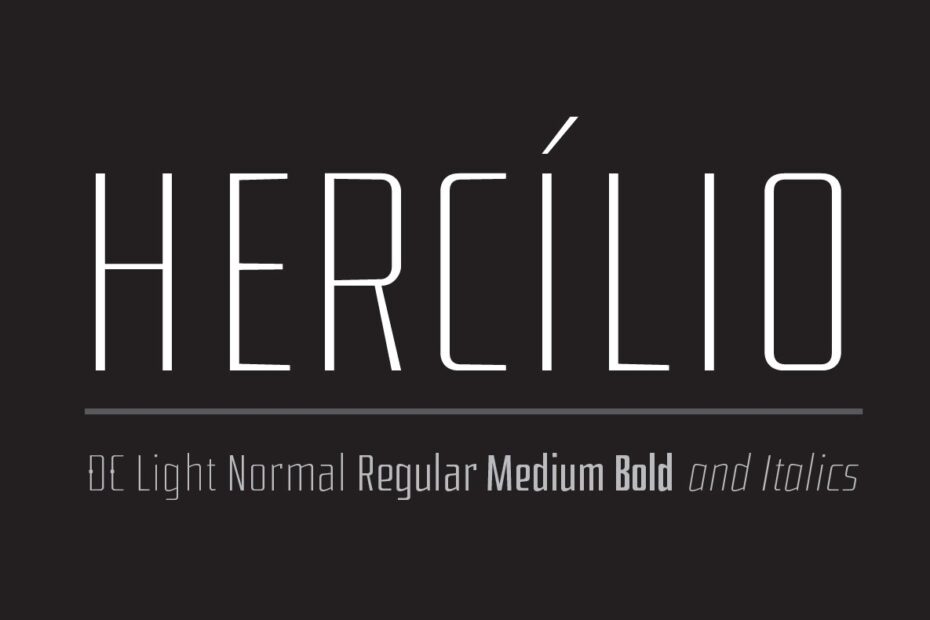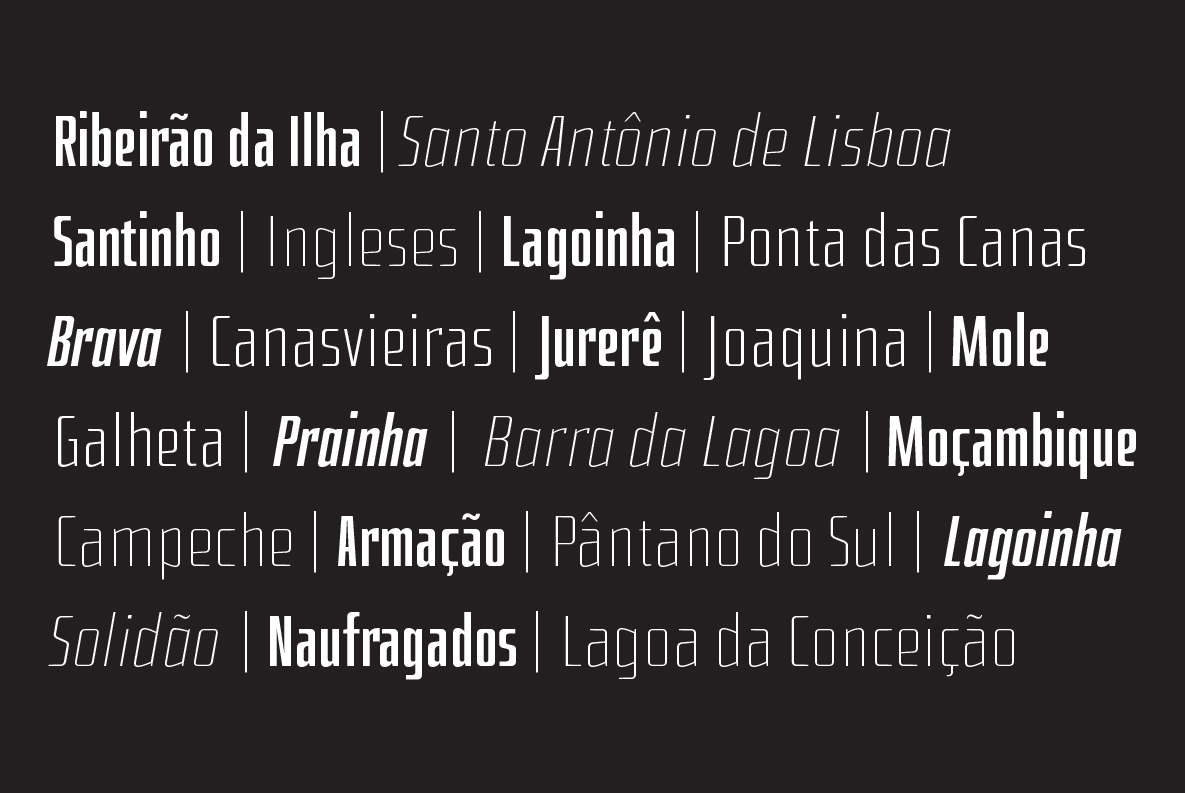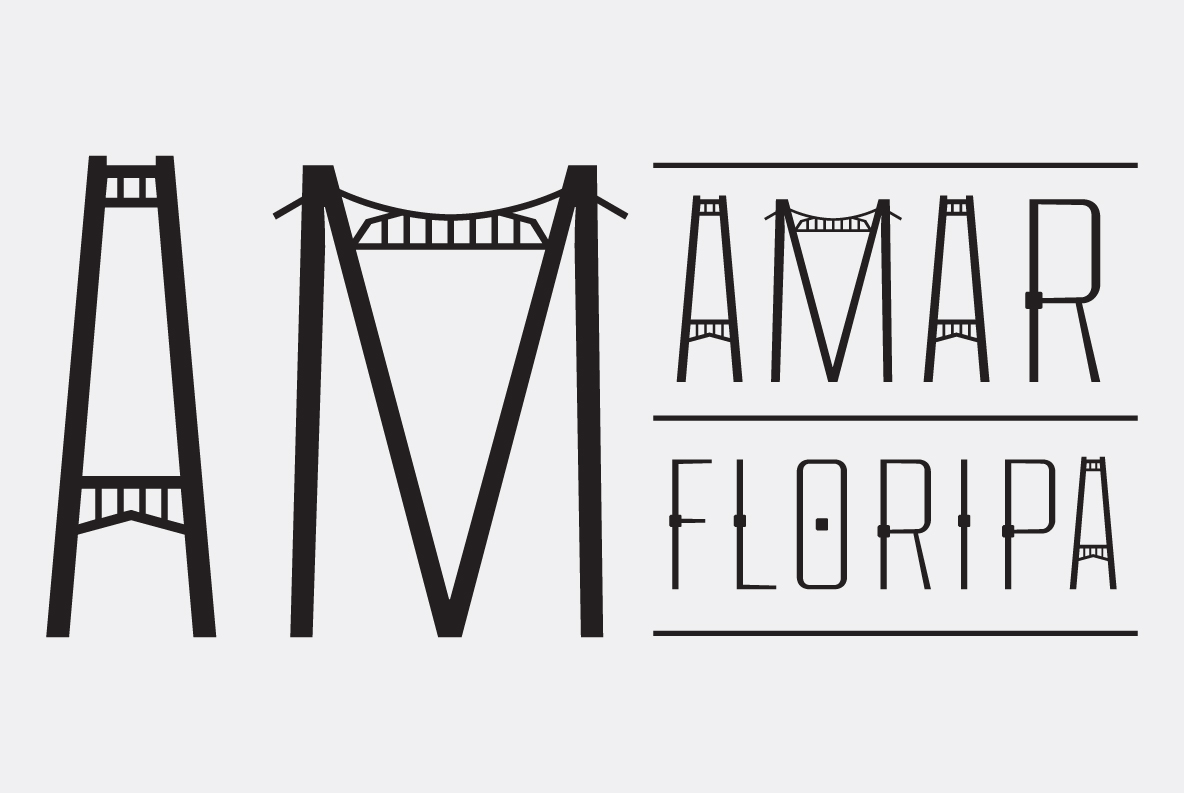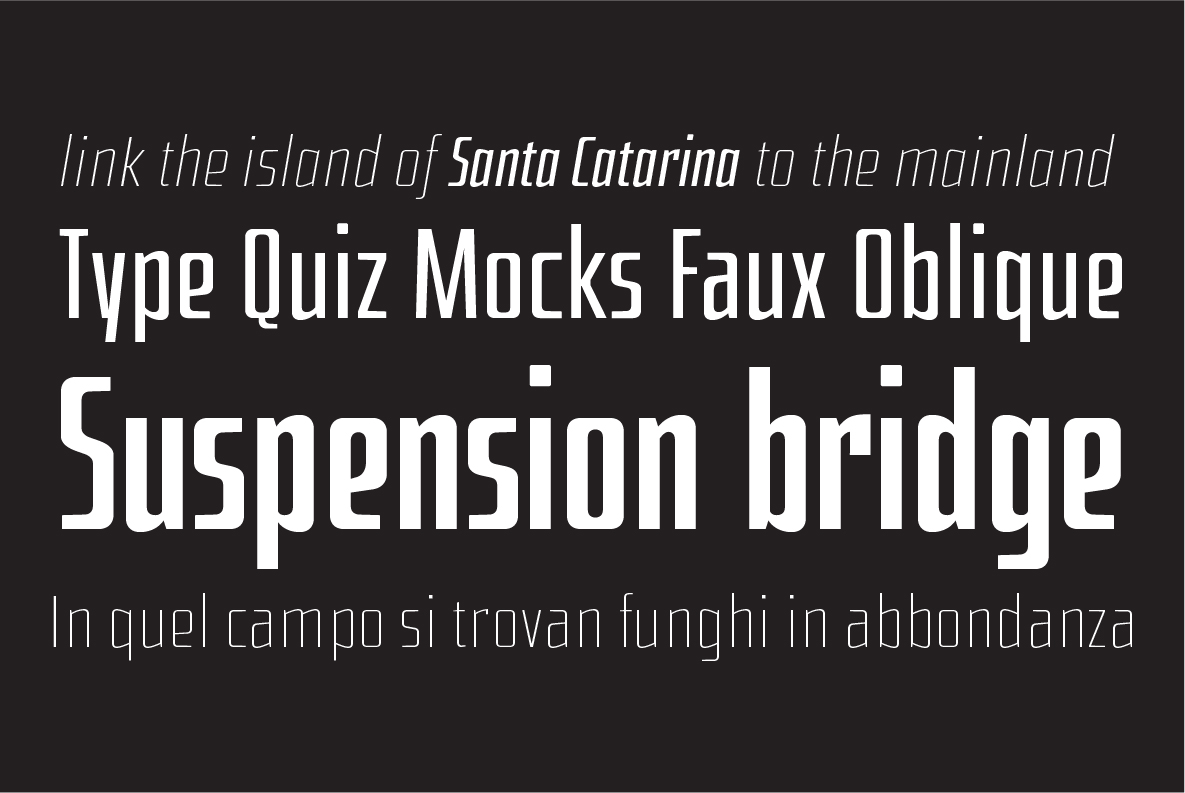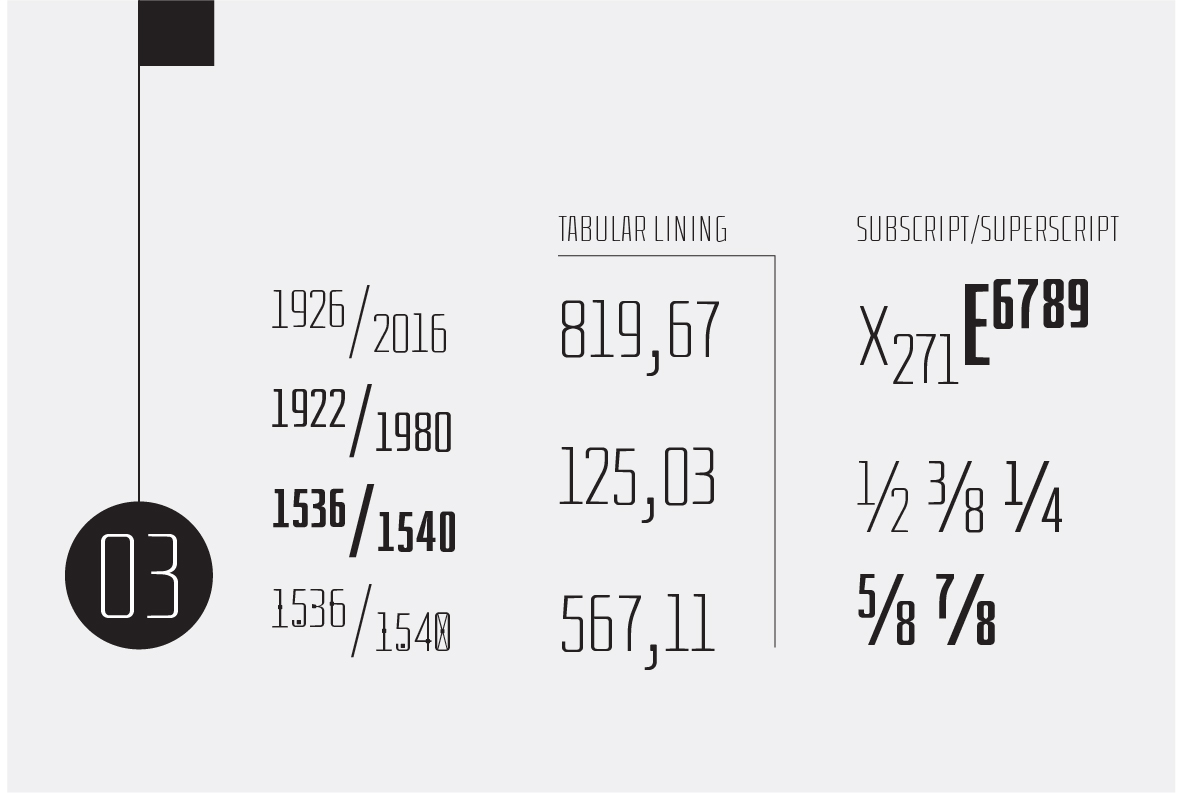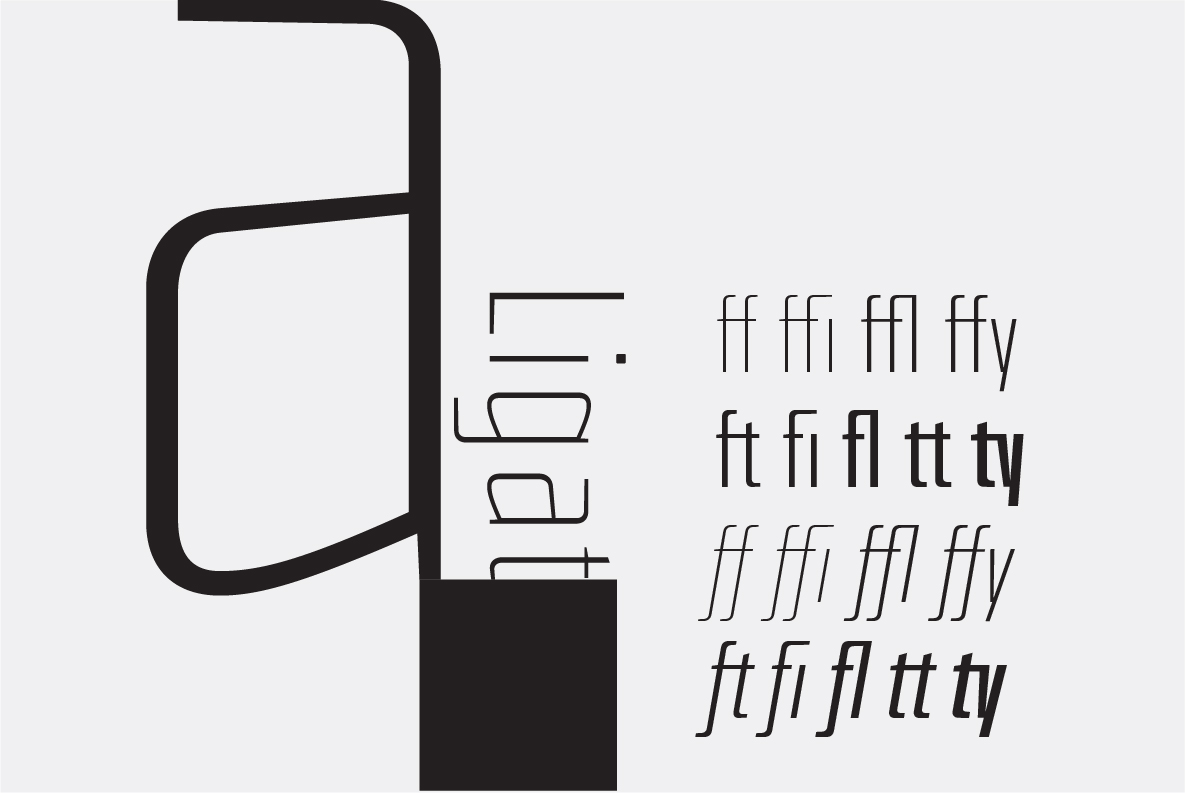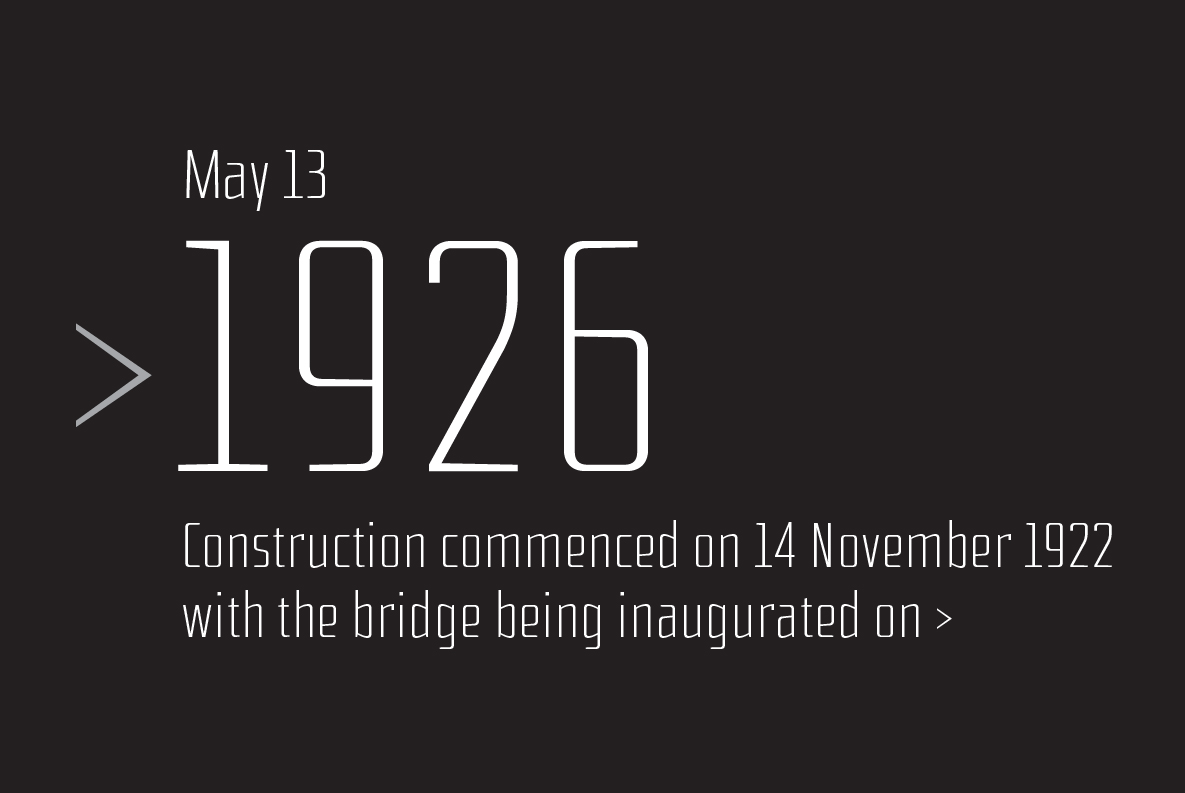
Meet Hercílio Font, a typographic family inspired by the architectural forms of the iconic Hercílio Luz Bridge in Florianopolis, Brazil. This stunning font family is designed to bring modernity and elegance to any design project, making it a valuable asset for designers looking to elevate their work.
With its unique blend of geometric and modern elements, Hercílio Font is sure to captivate your audience and leave a lasting impression. Whether you’re working on a business project, a magazine, or a website, this versatile font is sure to be a game-changer in your design arsenal.
Hercílio Font Key Features
- Font Family: A sans-serif font designed for digital use
- Unique Characteristics: Features a clean and modern design with a subtle rounded edge, making it suitable for digital interfaces, signage, and branding materials
- Language Support: Supports a wide range of languages, including Latin, Cyrillic, Greek, and many more
Hercílio Font Review
Hercílio Font is a unique and eye-catching font that can add a touch of elegance to any design. ✨ I appreciate its clean lines, geometric shapes, and minimalist aesthetic, making it perfect for modern designs.
- ✨ Versatility: Hercílio Font can be used in a variety of designs, from headlines to body text, making it a great addition to any font library.
- ✨ Legibility: The font is highly legible, even at smaller font sizes, making it suitable for a wide range of applications.
- ✨ Customizability: Hercílio Font offers a range of weights and styles, allowing designers to experiment with different looks and feels.
However, there are some limitations to consider. ⚠️ The font may not be the best choice for designs that require a more traditional or serif font style. Additionally, some users may find the font’s geometric shapes to be a bit too angular or futuristic.
Overall, I’m impressed with Hercílio Font’s unique design and versatility. While it may not be the best fit for every design project, it’s certainly a great option for modern and minimalist designs. With a bit of experimentation, designers can unlock the full potential of this font and create some truly stunning designs.
Getting the Most Out of Hercílio Font
To get the most out of Hercílio Font, use it for headings, titles, and other emphasis. It’s a bold and elegant font that can add sophistication to your designs.
Hercílio Font is commonly used for:
– Headings and titles
– Editorial design and publishing